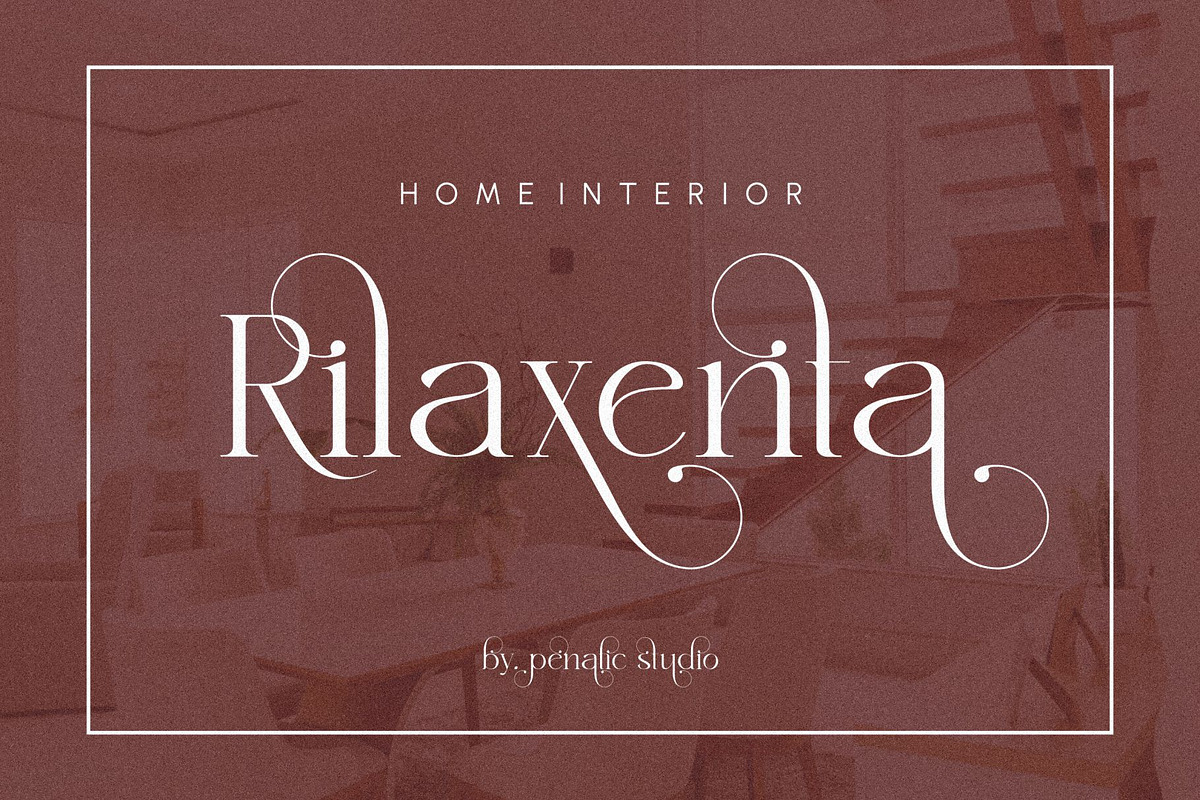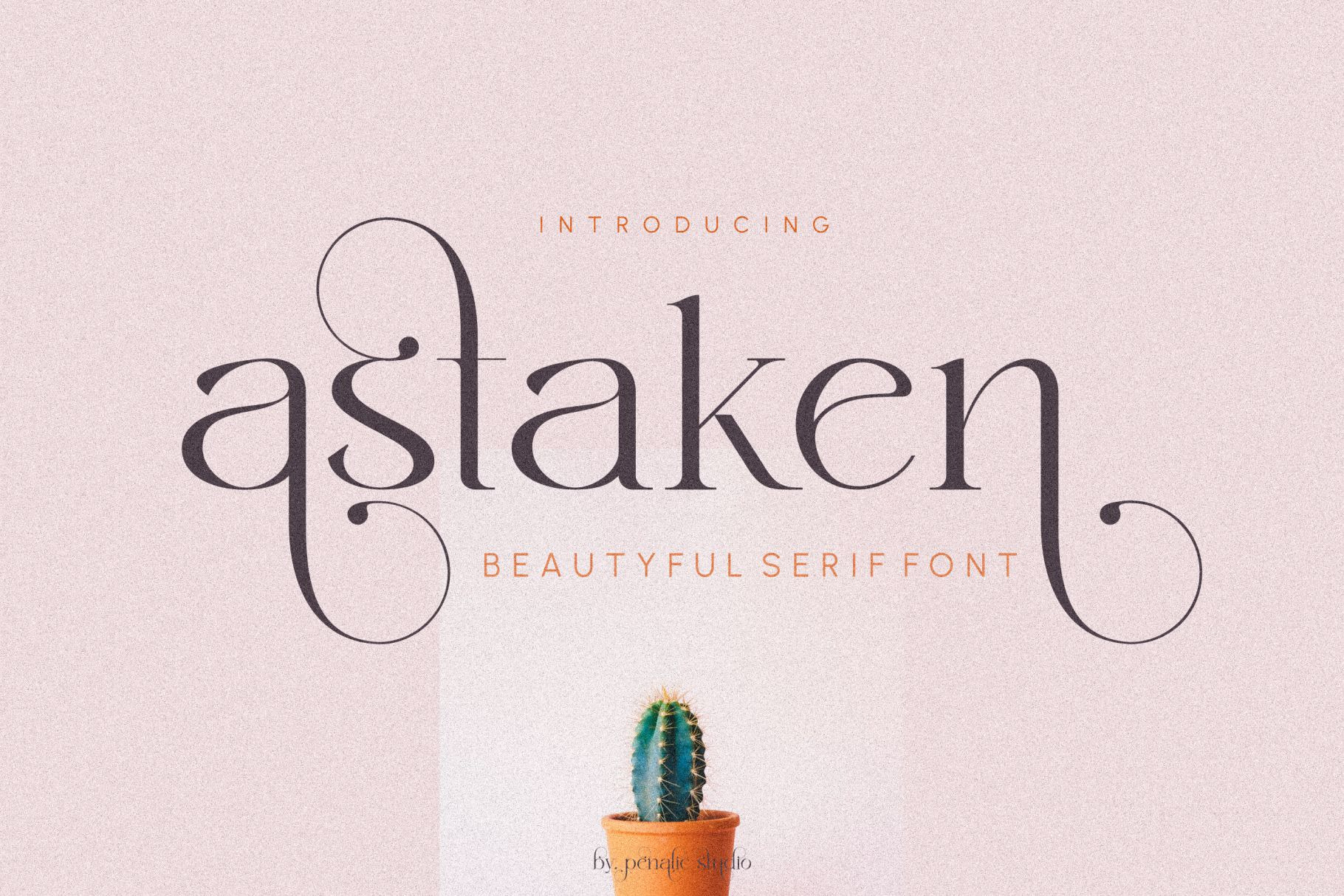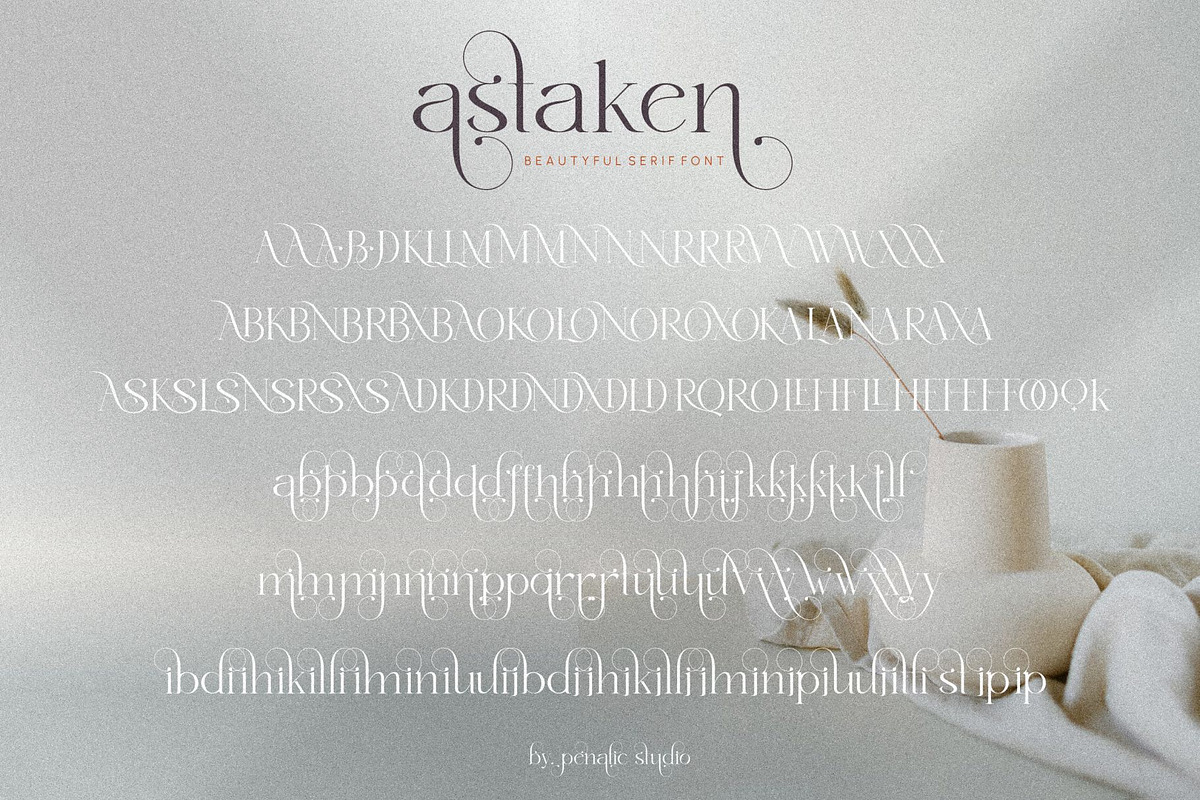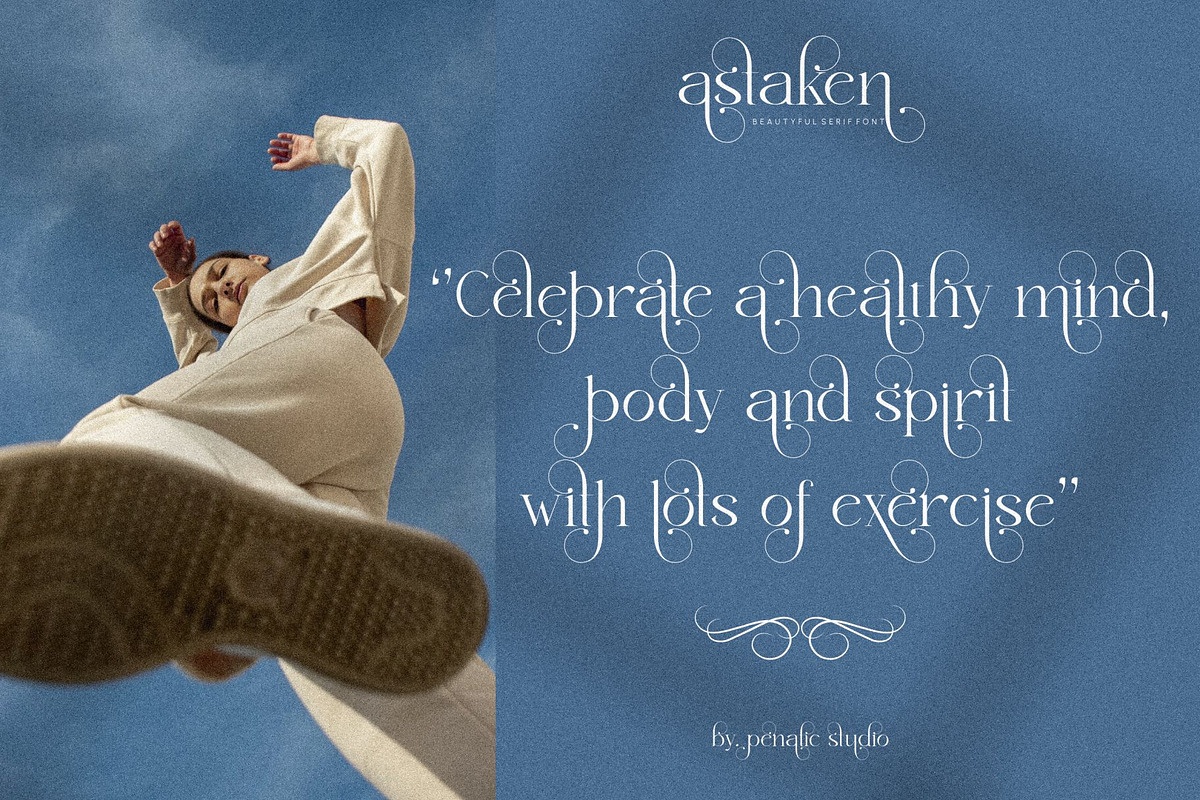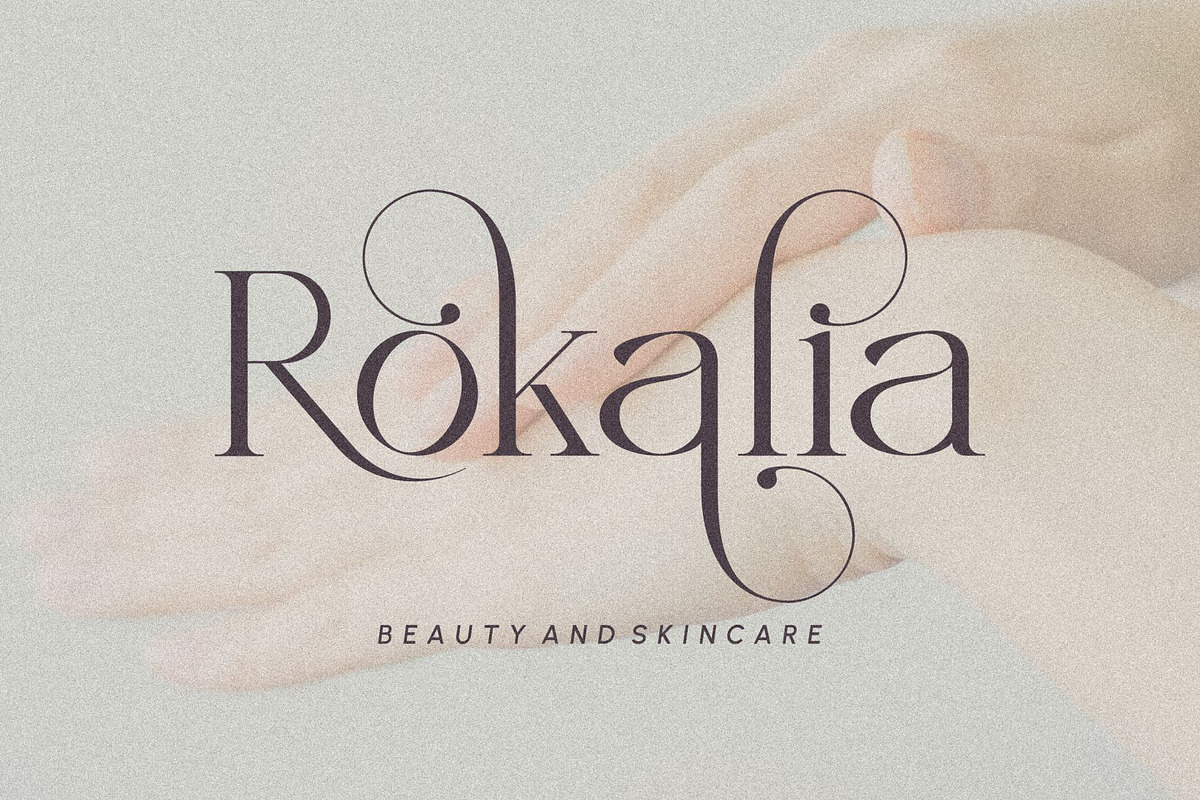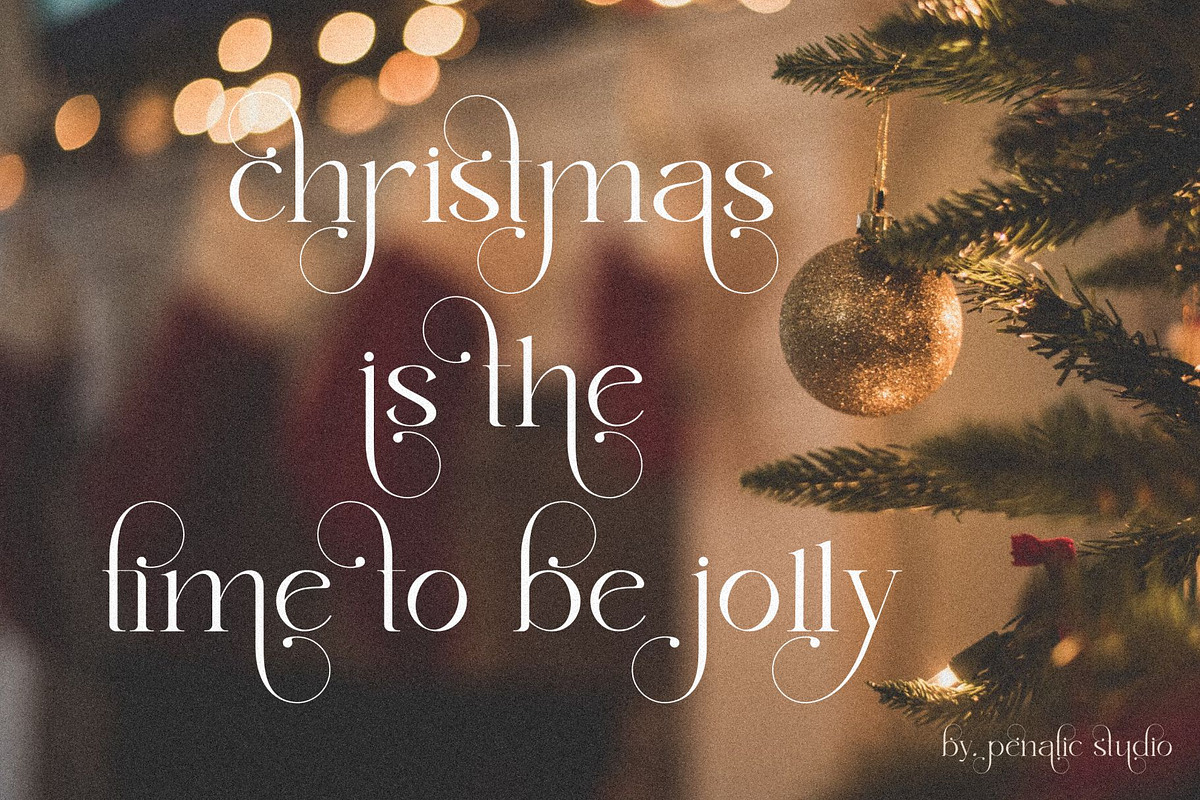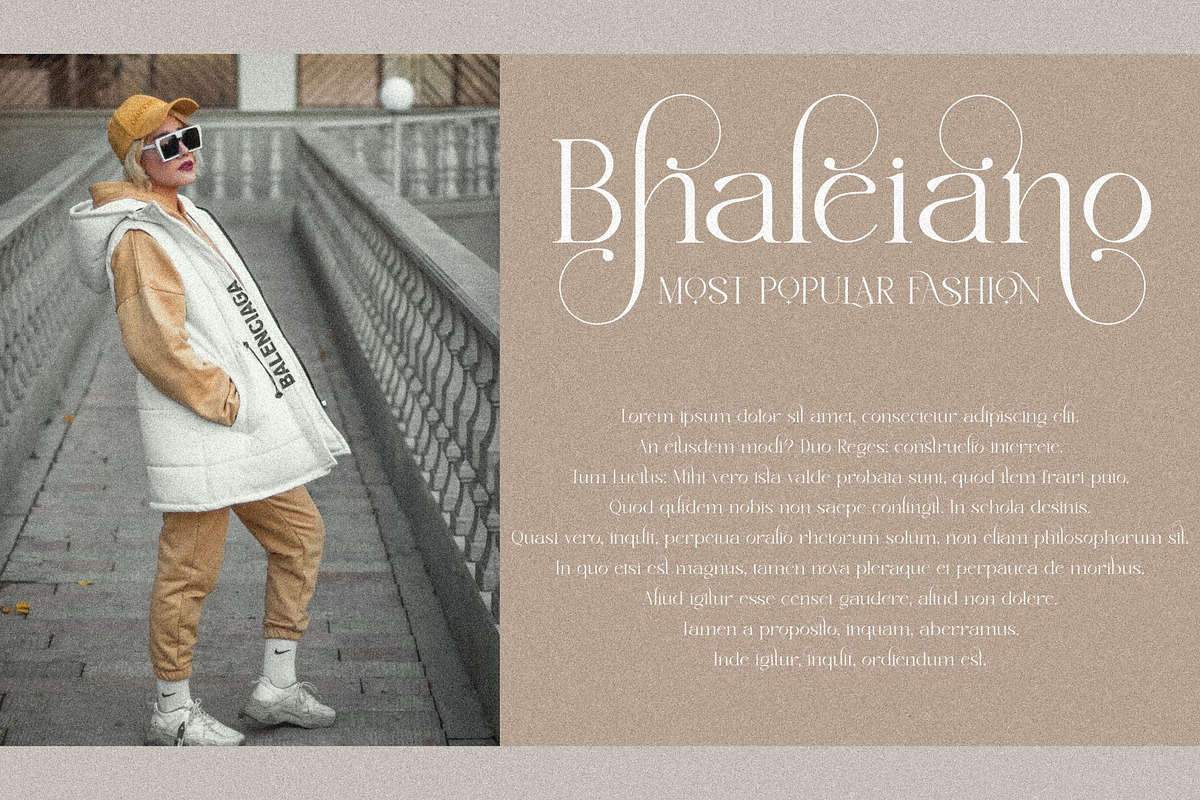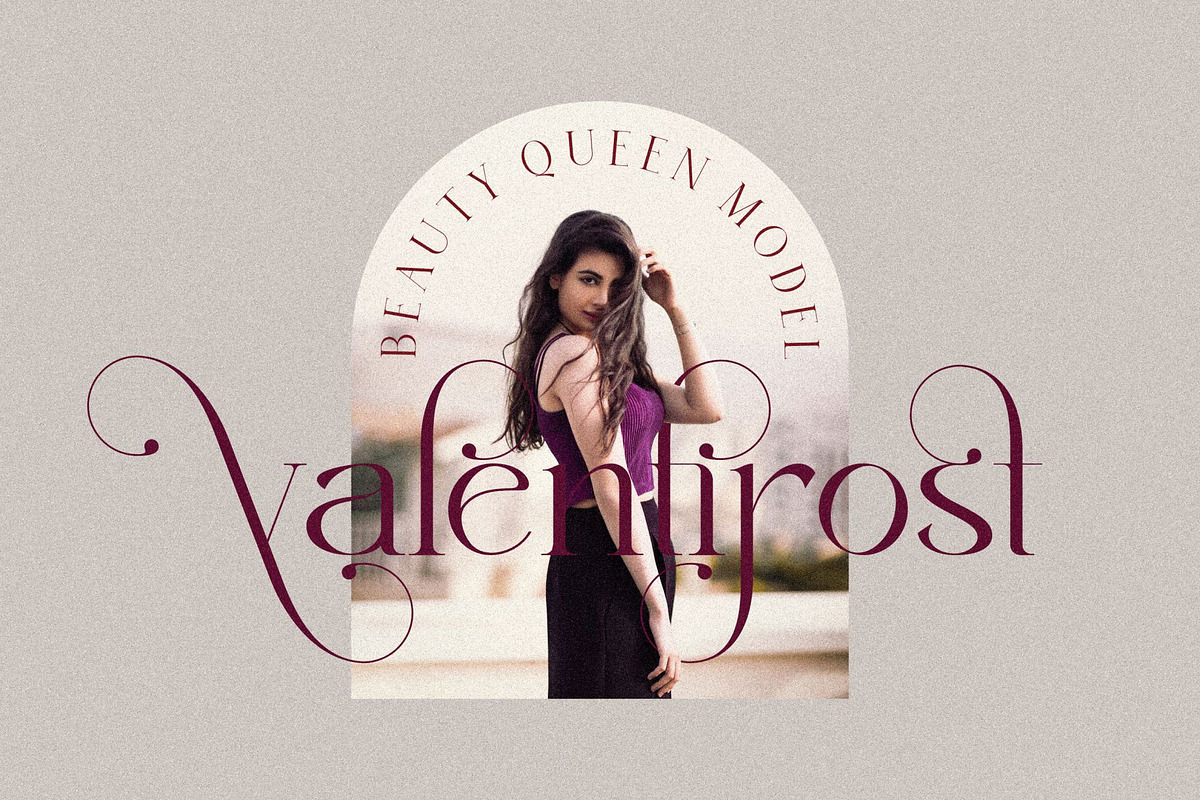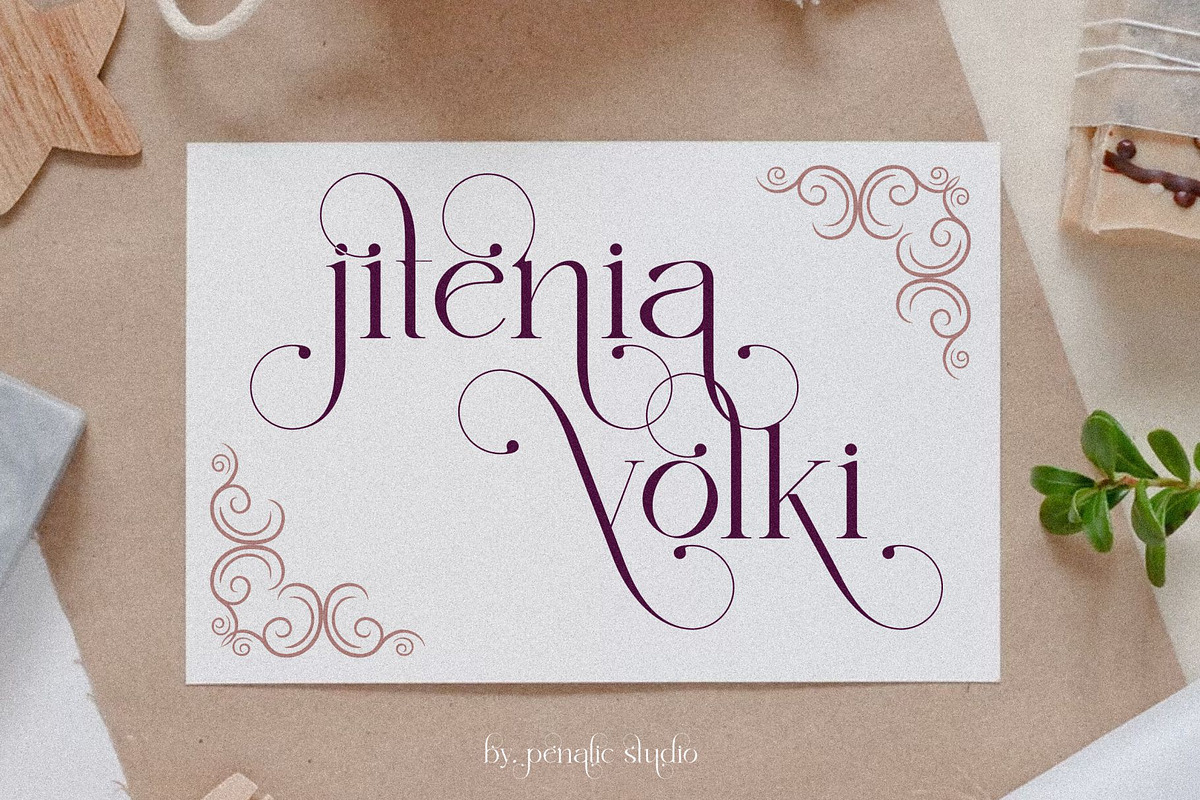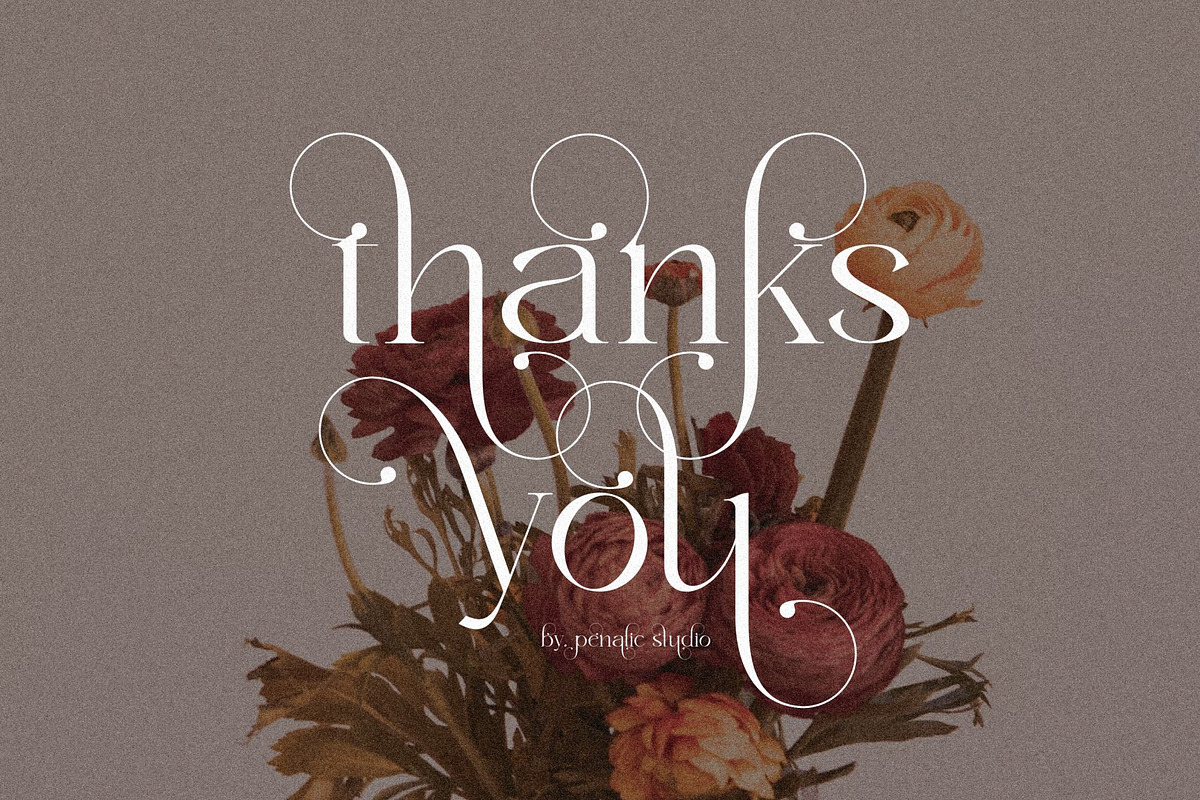
Astaken _ Beautyful serif font
Introducing Astaken is a classy serif font with some very beautiful curved ligatures.
Which will definitely make all your projects easy and good.
This font is great for creating logos, branding, advertising, craft projects, shirts, decorations, wedding invitations, packaging, stickers, social media, quotes, magazines, and more!